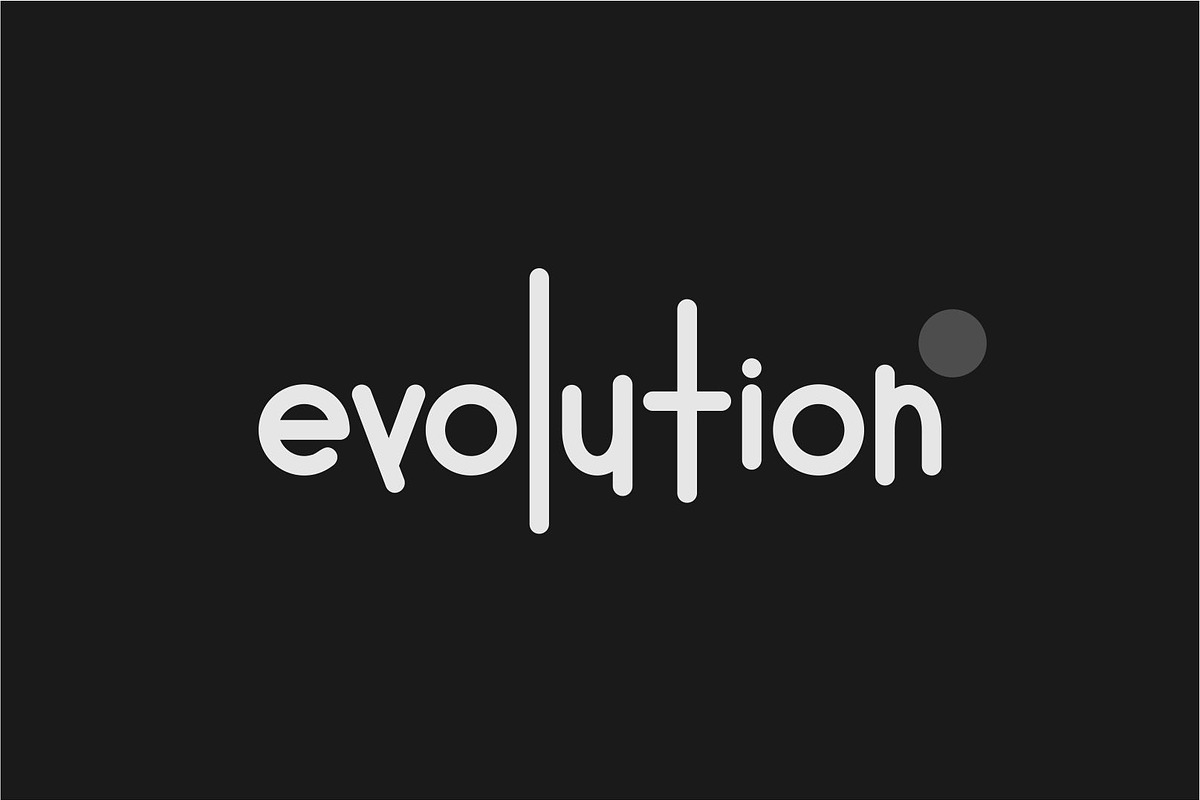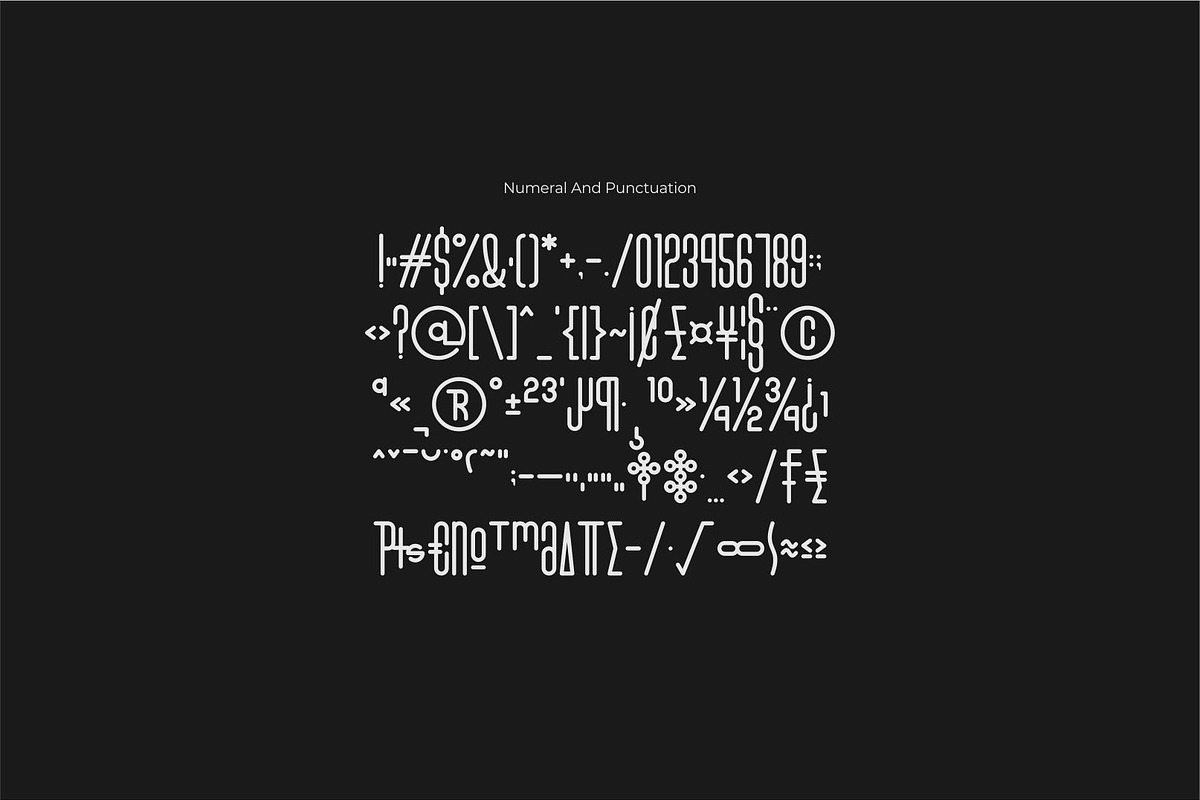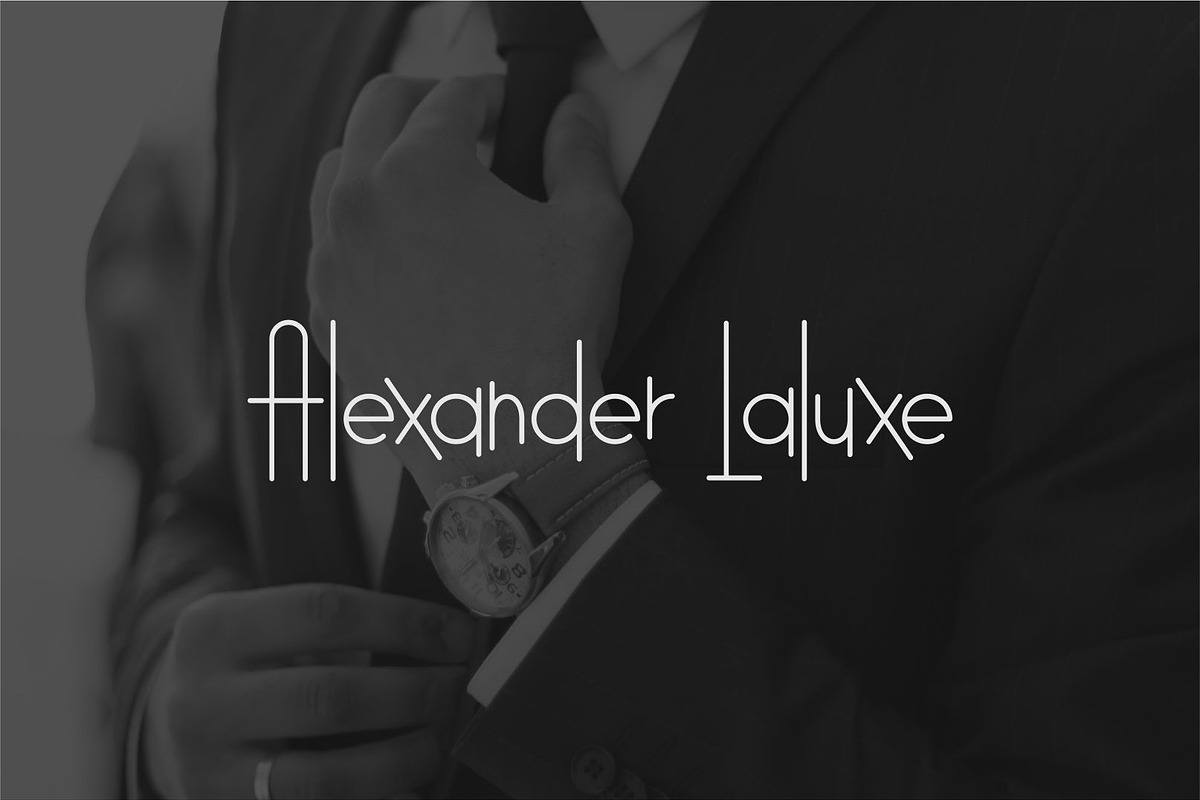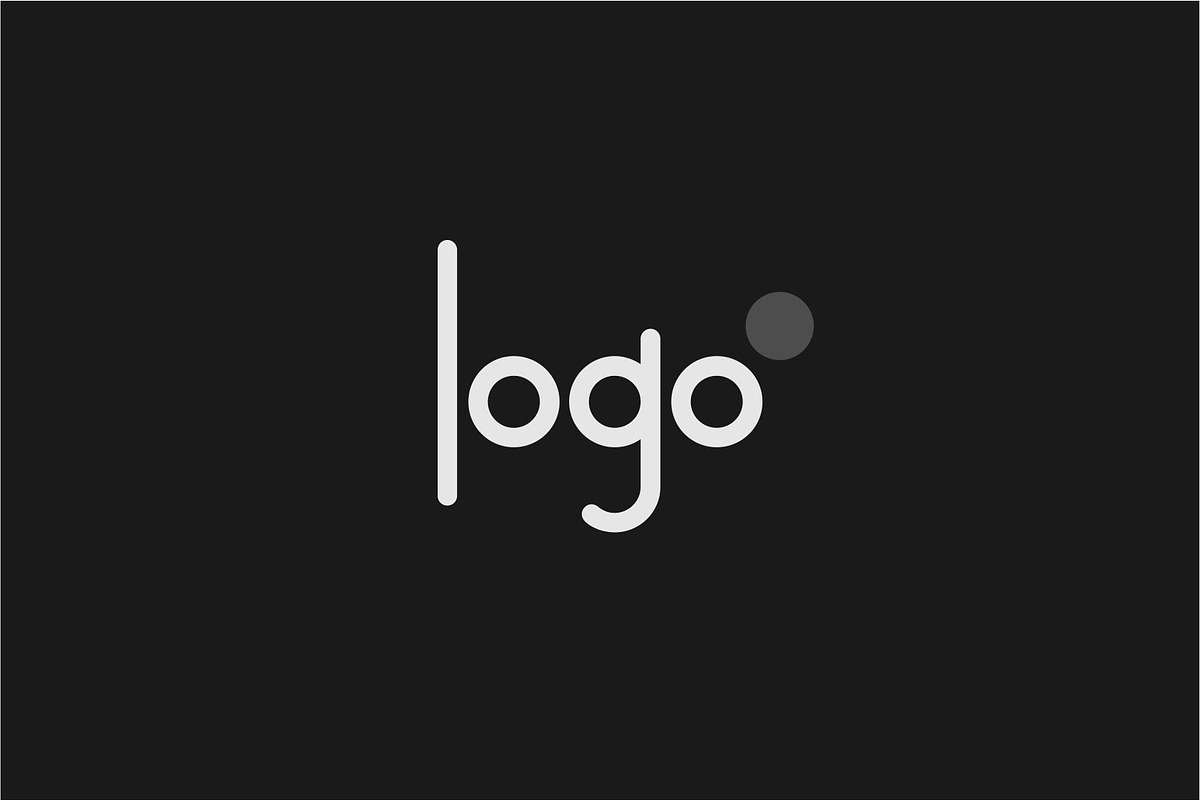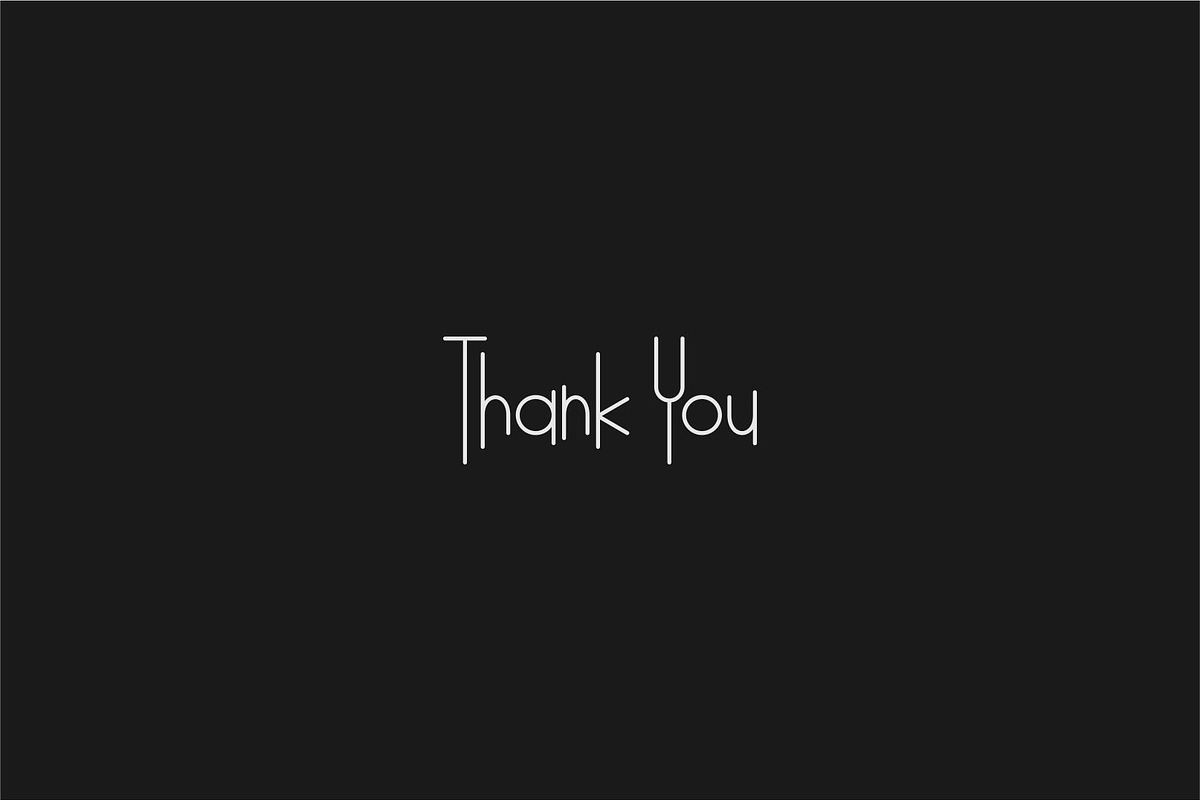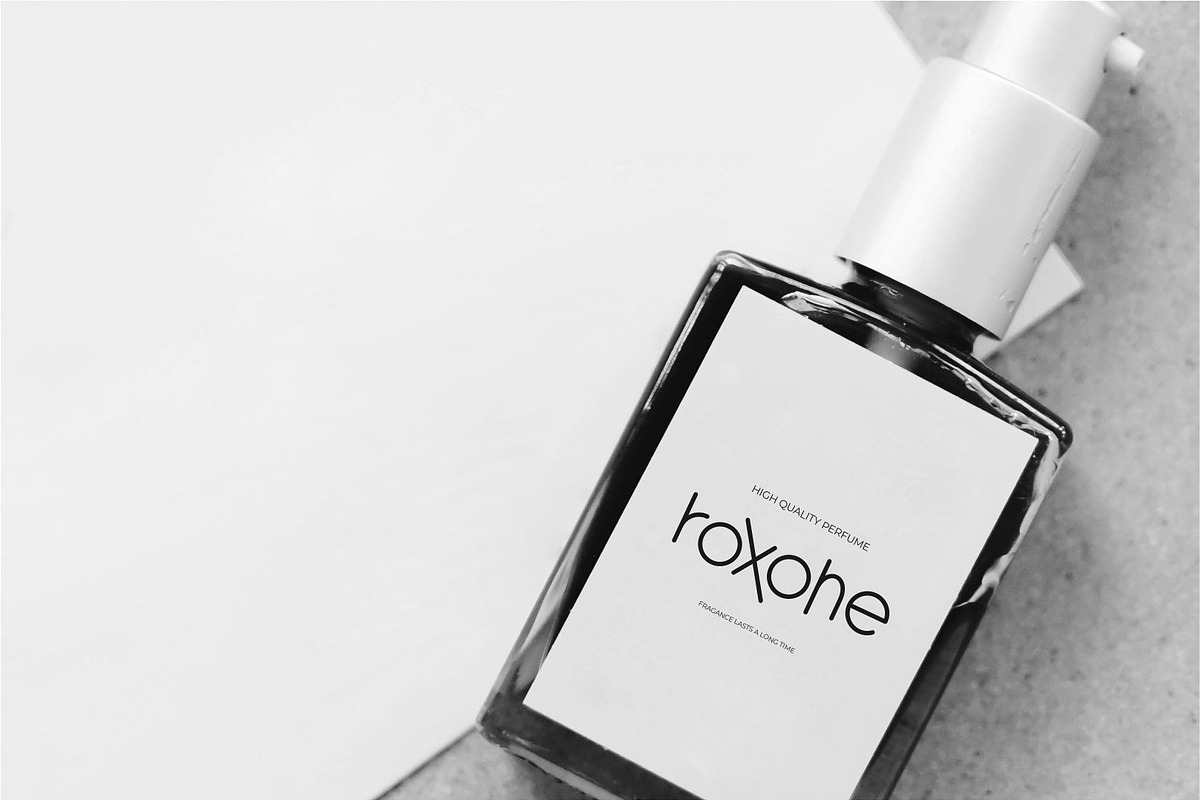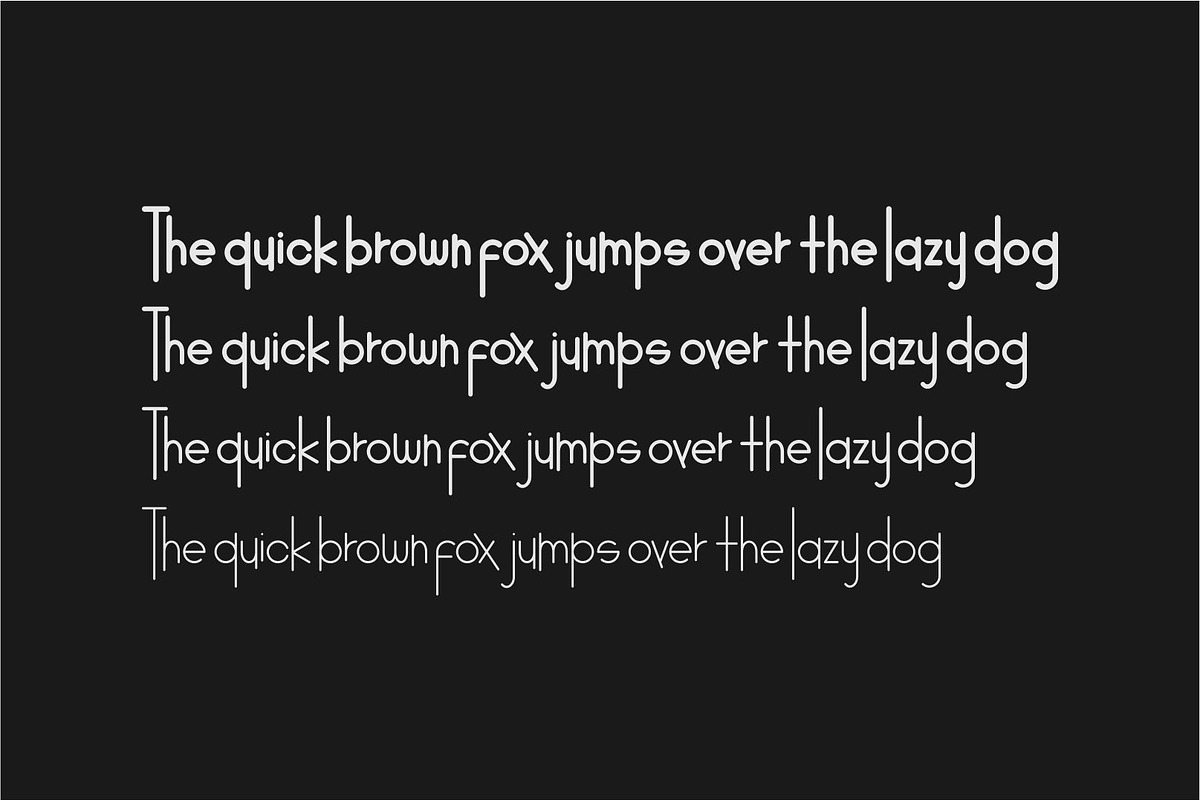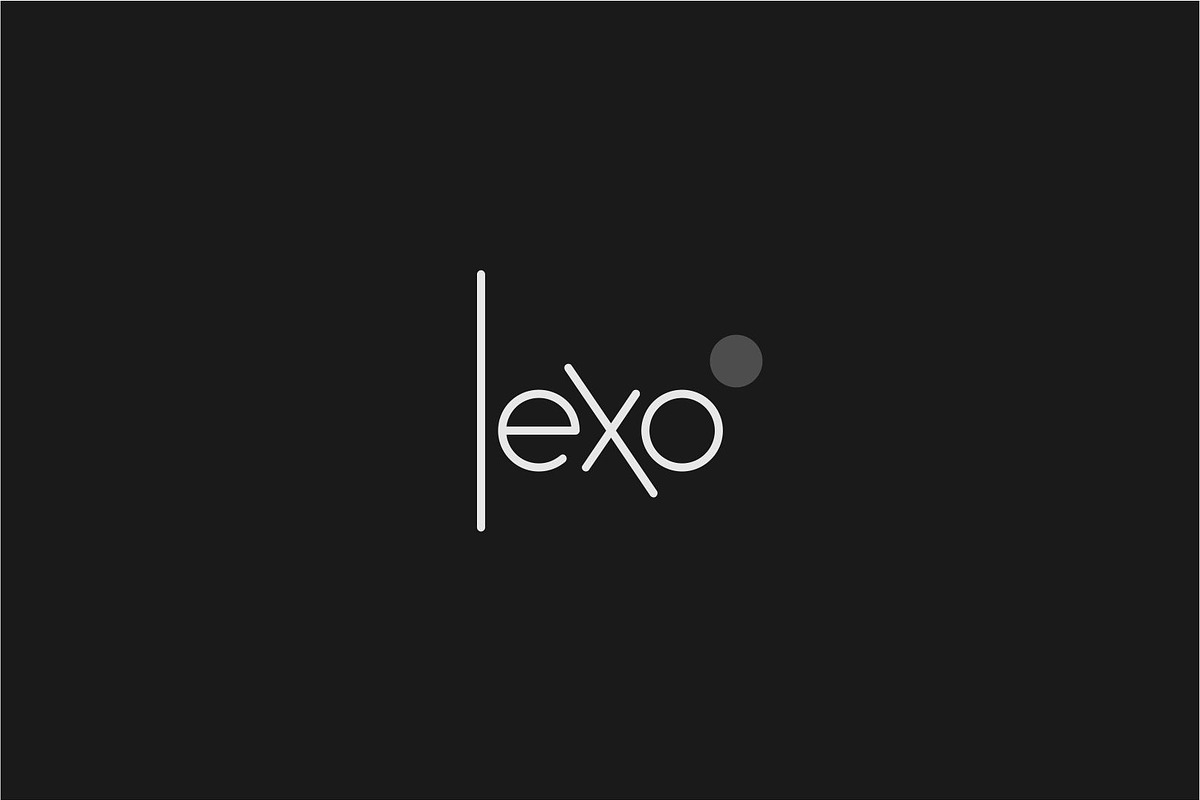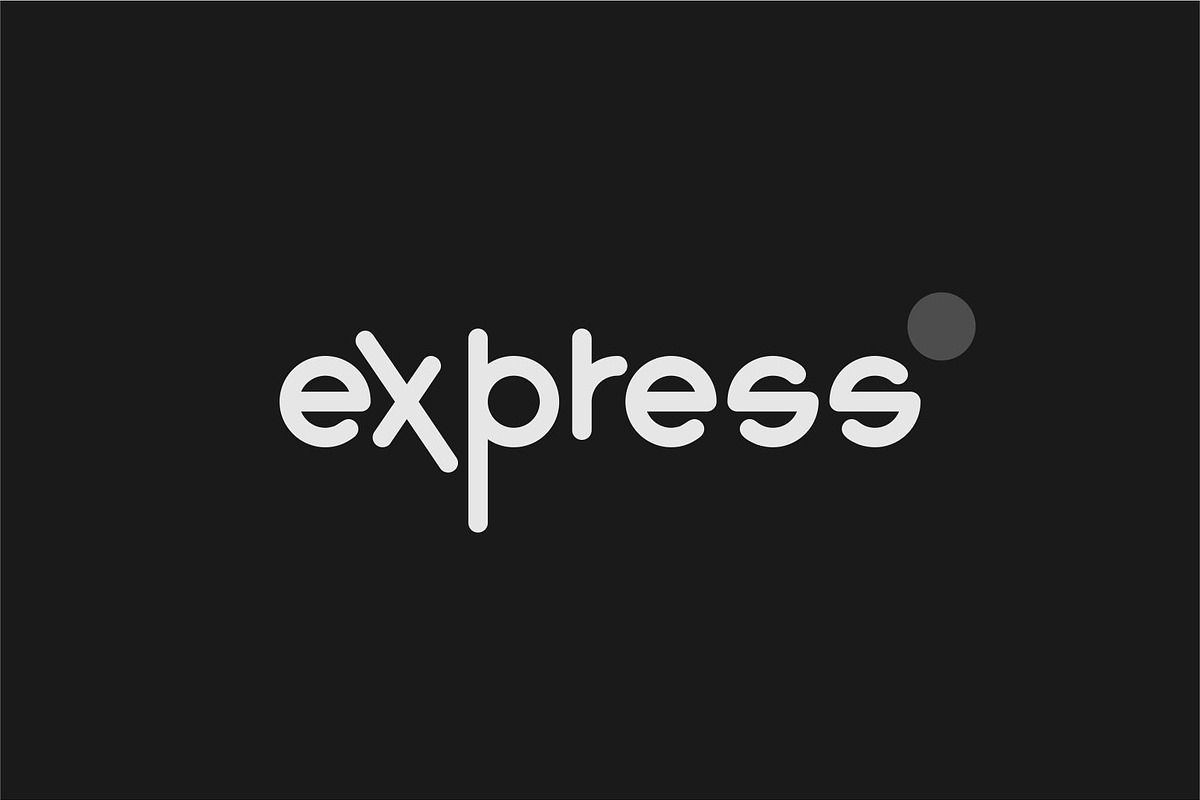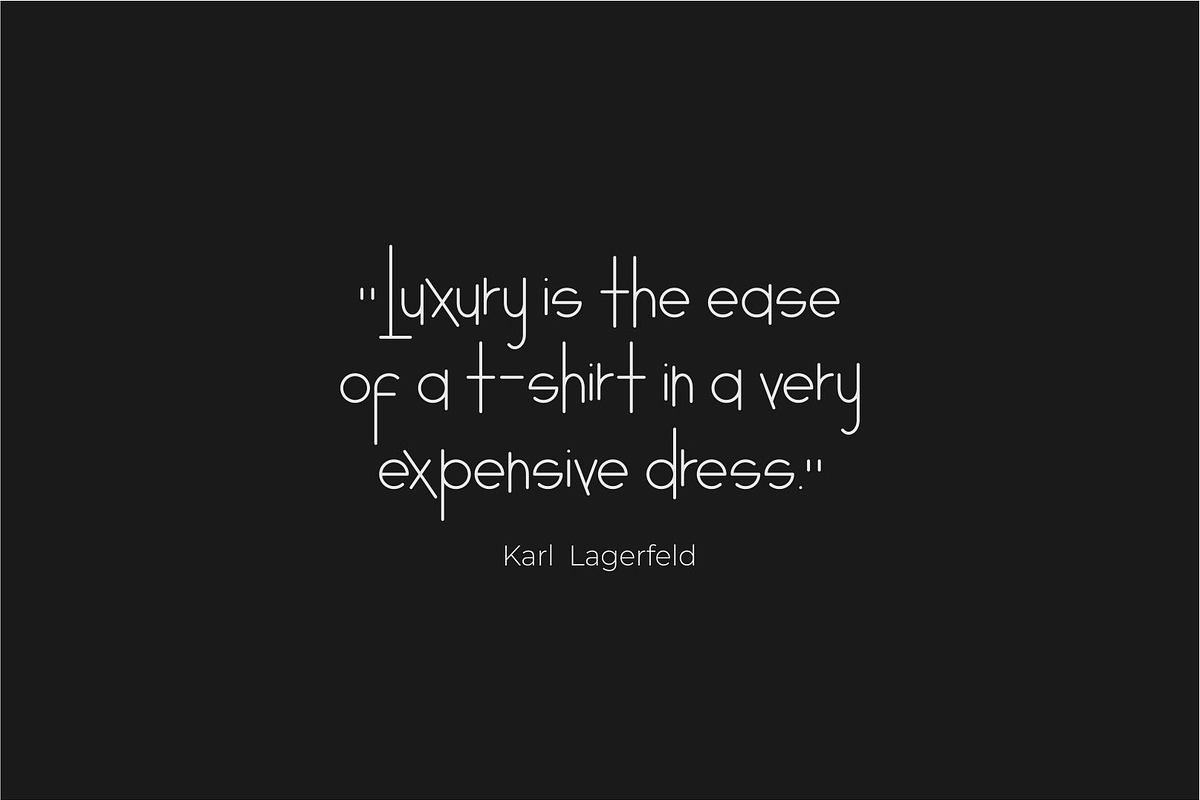
Oblo - Sans Serif Cool Font Family
Hi ladies and gentlemen! The latest cool modern sans serif font has arrived, which is a font that many ladies and gentlemen are looking at. Namely oblo. The oblo font is a stylish sans serif font. with the latest simple style, it has become a market favorite. We keep this font looking elegant, classy, stylish. oblo Fonts are the right choice for logos, branding, brands, fashion, motivational words, beauty, magazines, designs, books, publications, brand names, business cards, social media, classy designs, newspapers and other projects. oblo Font is here to improve the quality of your designs.
• Uppercase • Lowercase • Oblo Bold • Oblo Semi Bold • Oblo Medium • Oblo Light • Multilingual Support • Numerical • Punctuation